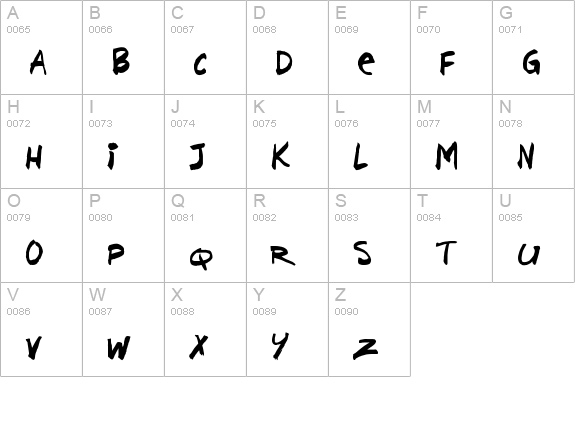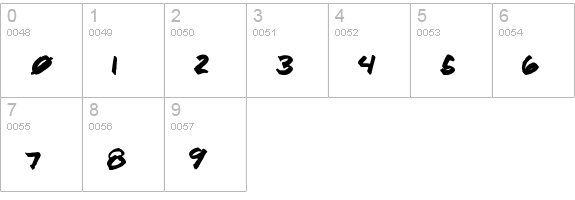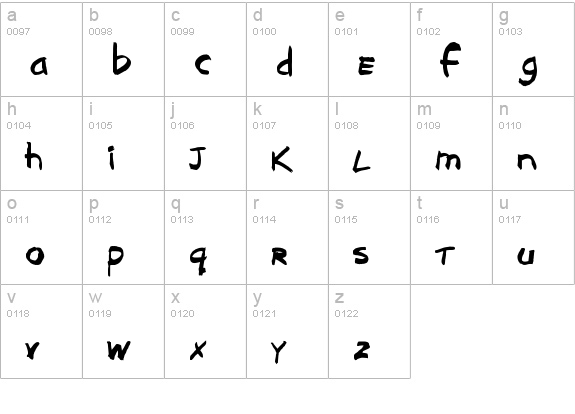
Brushcut Font Details
Introducing Brushcut font, a versatile and dynamic typeface that exudes creativity and energy. With its bold and expressive brush strokes, Brushcut font effortlessly captures attention and adds a touch of spontaneity to any design project. This font is perfect for headlines, posters, logos, and more, giving your work a unique and modern edge. The best part about Brushcut font? It's completely free! You can download this striking typeface at FontsMarket.com and start using it in your designs today. Embrace the boldness of Brushcut font and let your creativity shine with this eye-catching and impactful typeface.